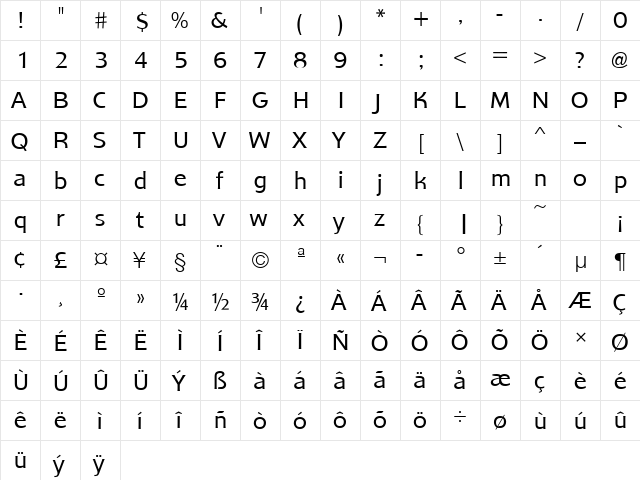
BluejackURWTLig Regular
Design Context for BluejackURWTLig Typeface
BluejackURWTLig is a composed and adaptable typeface that performs quietly and consistently across a wide range of design contexts.